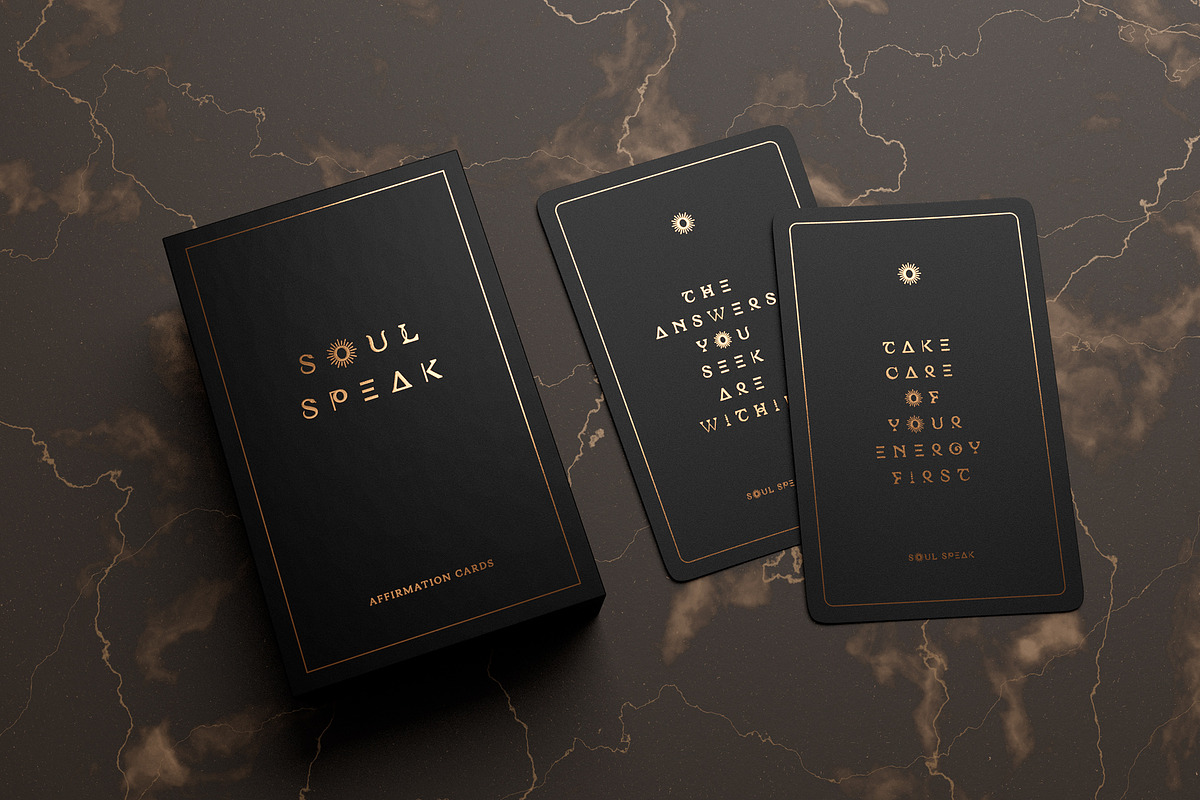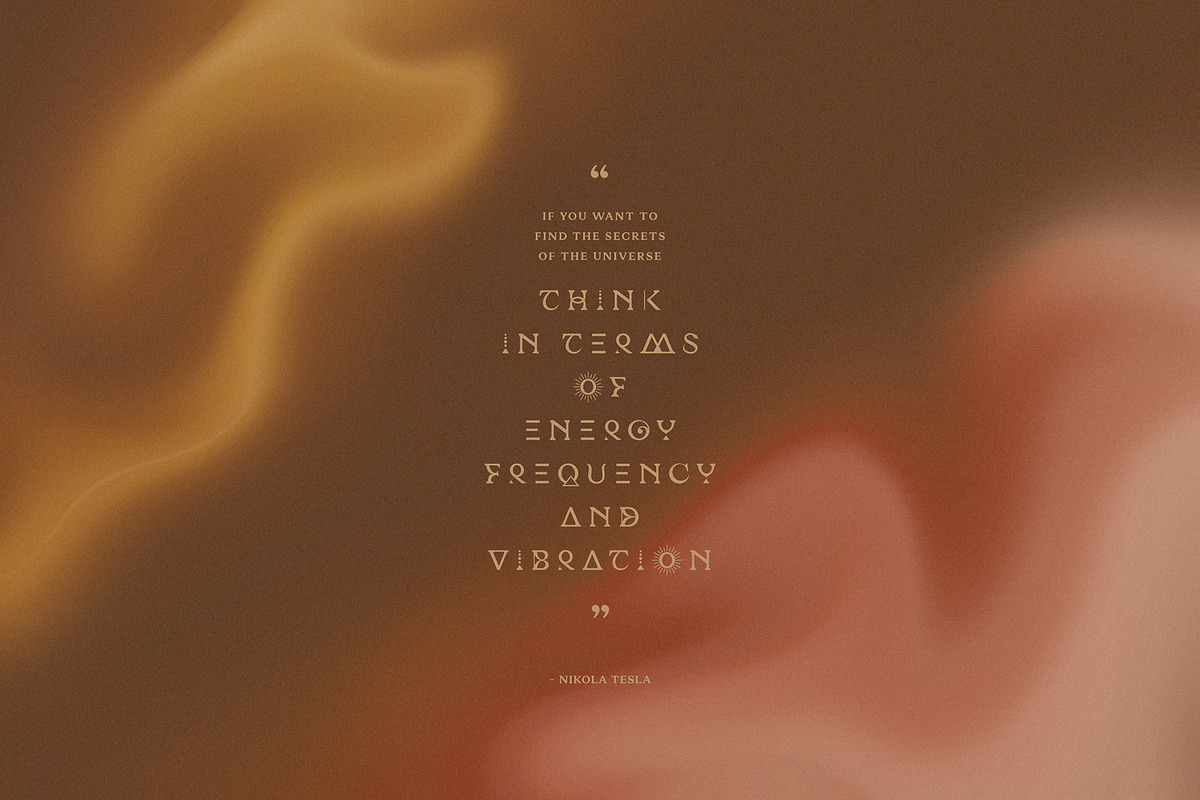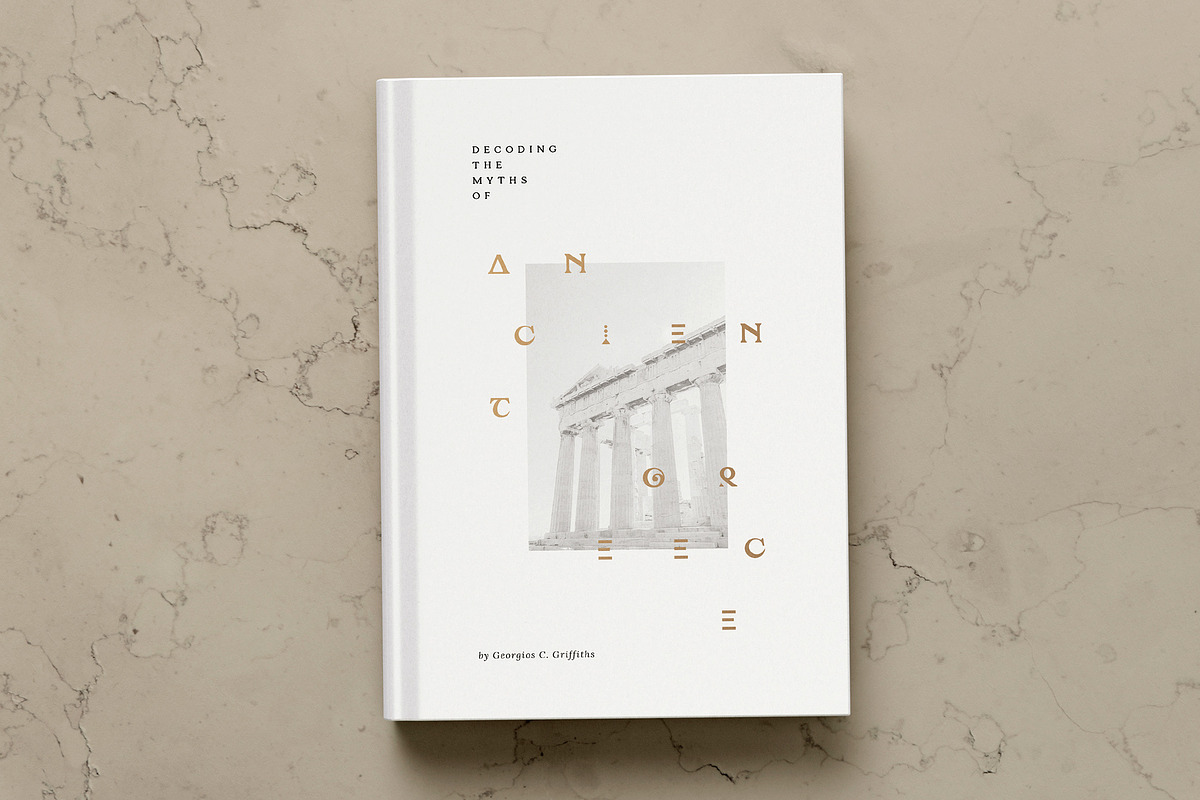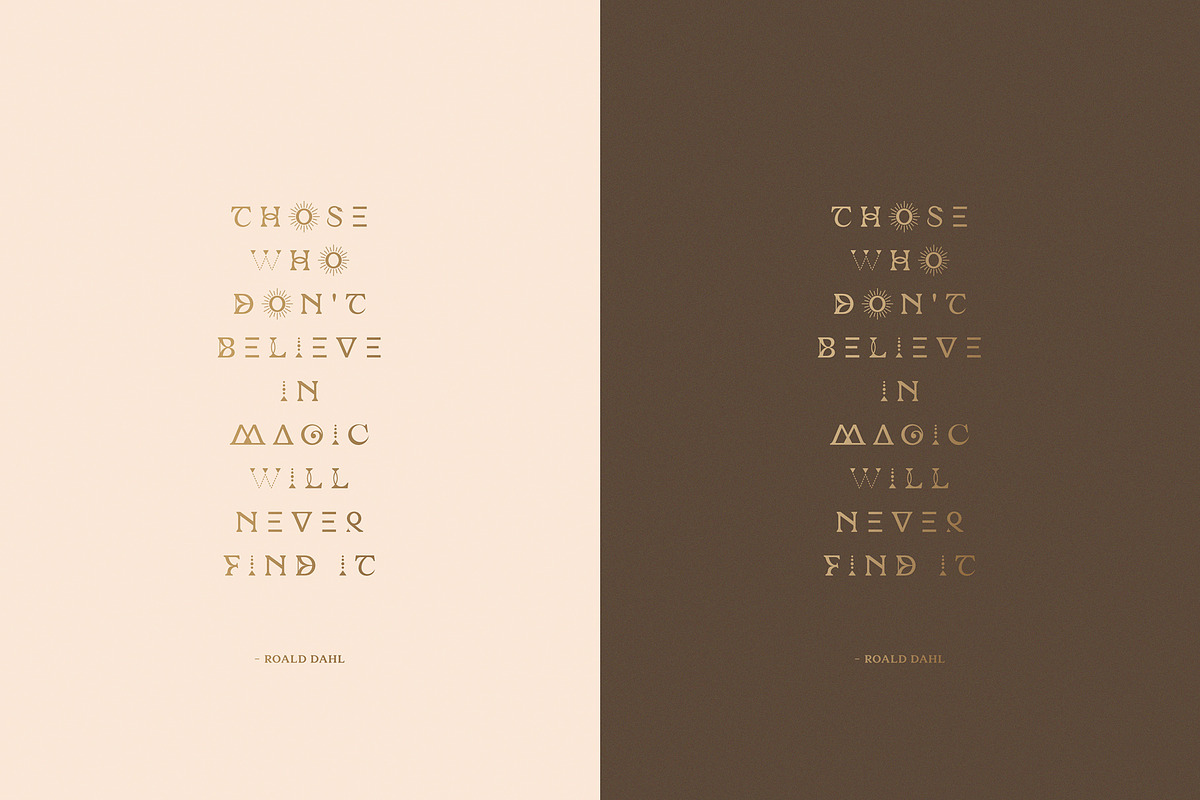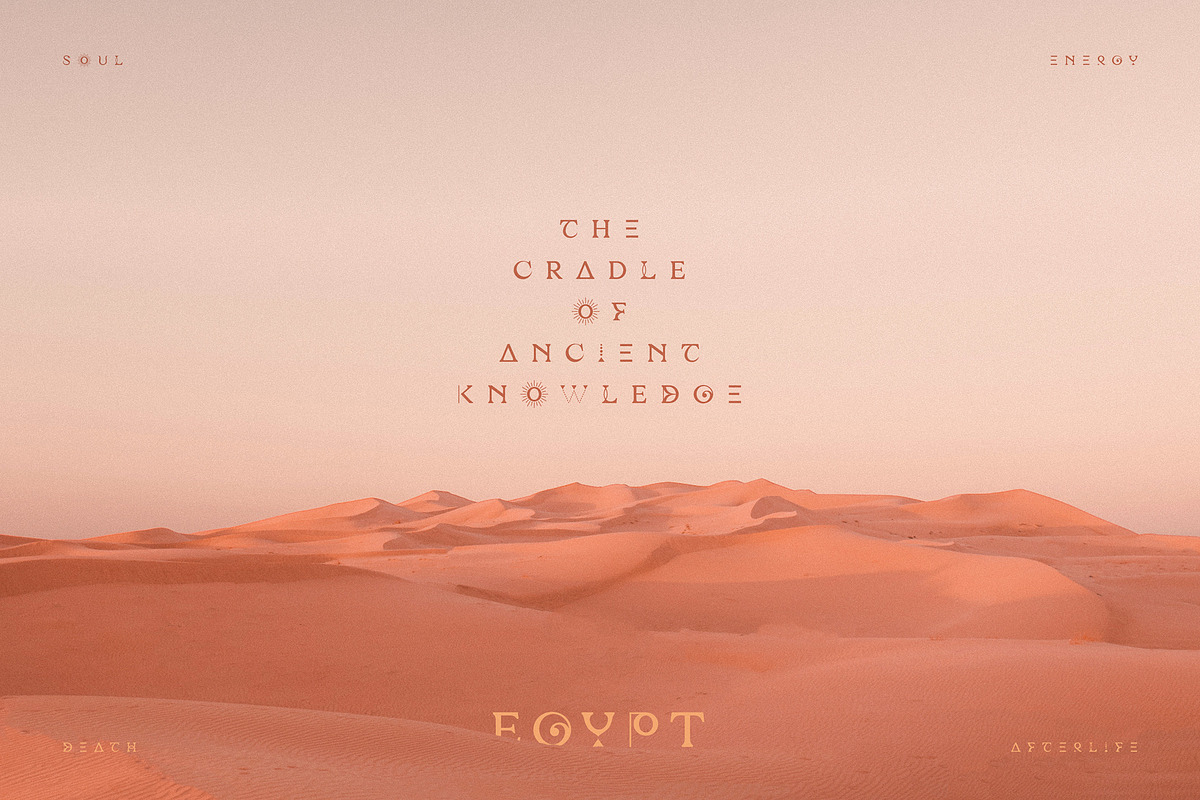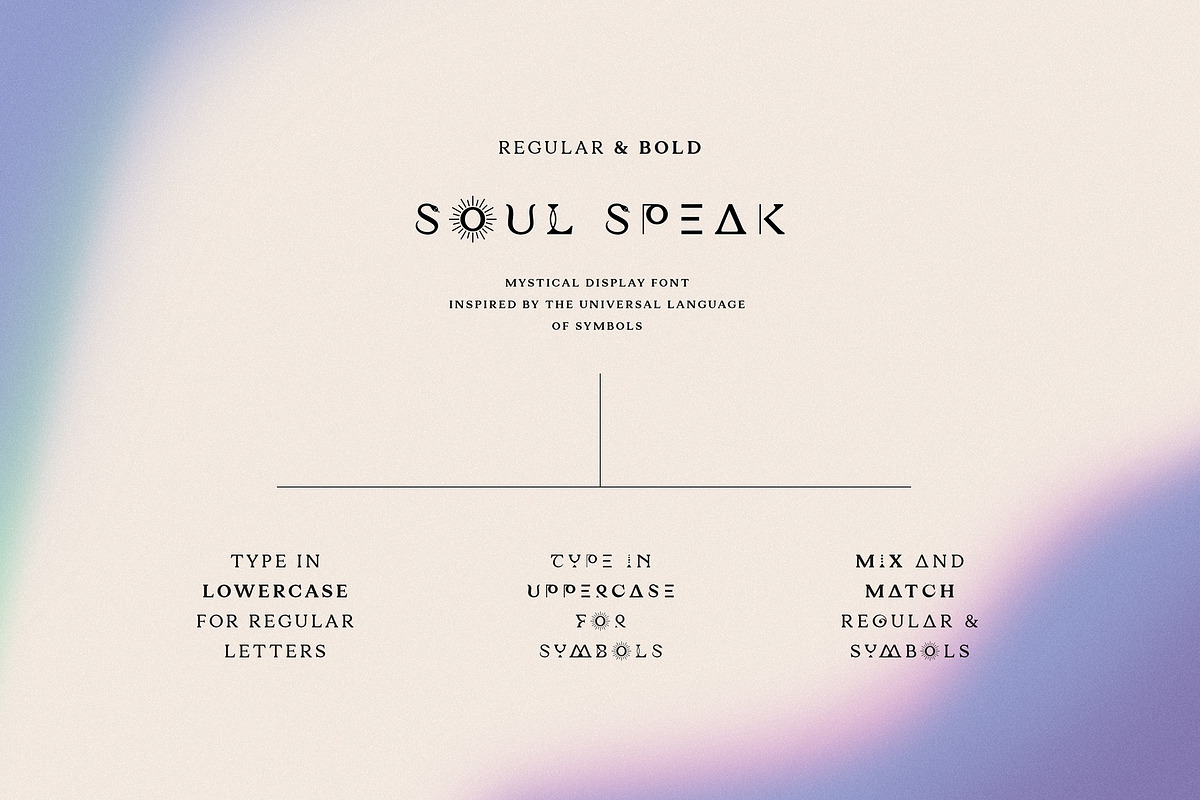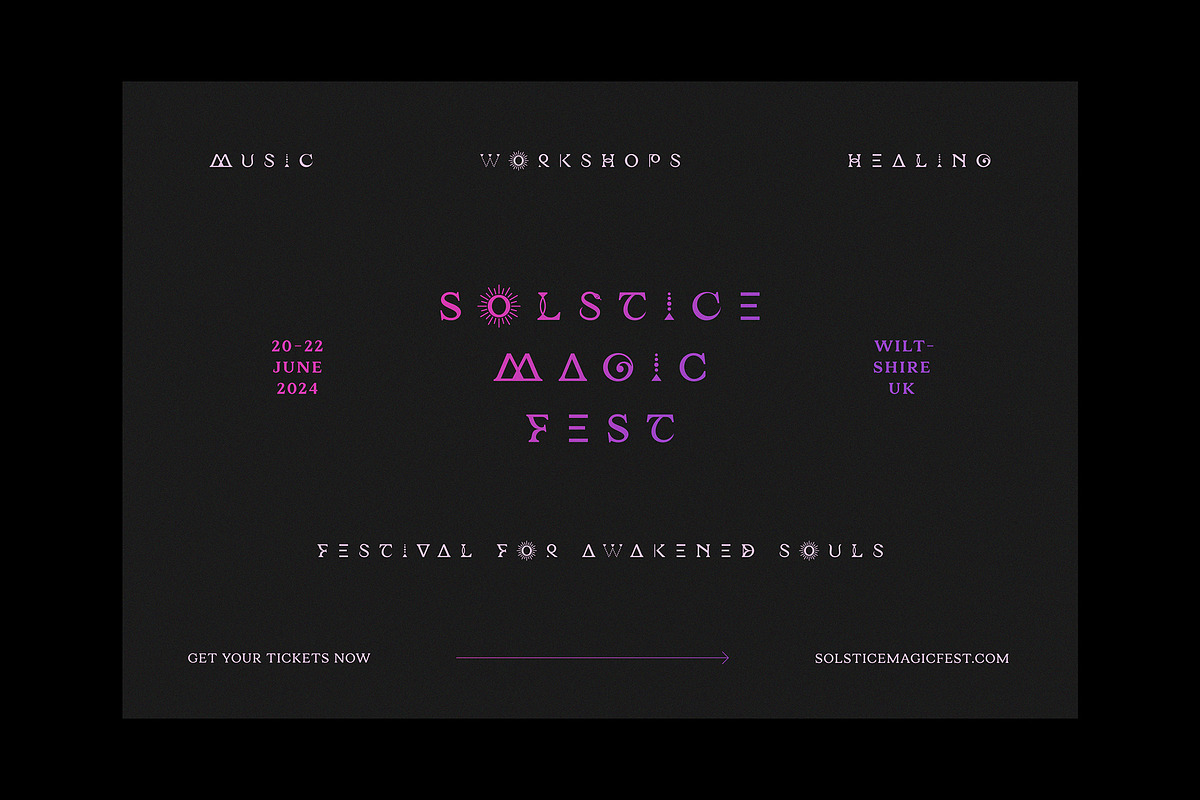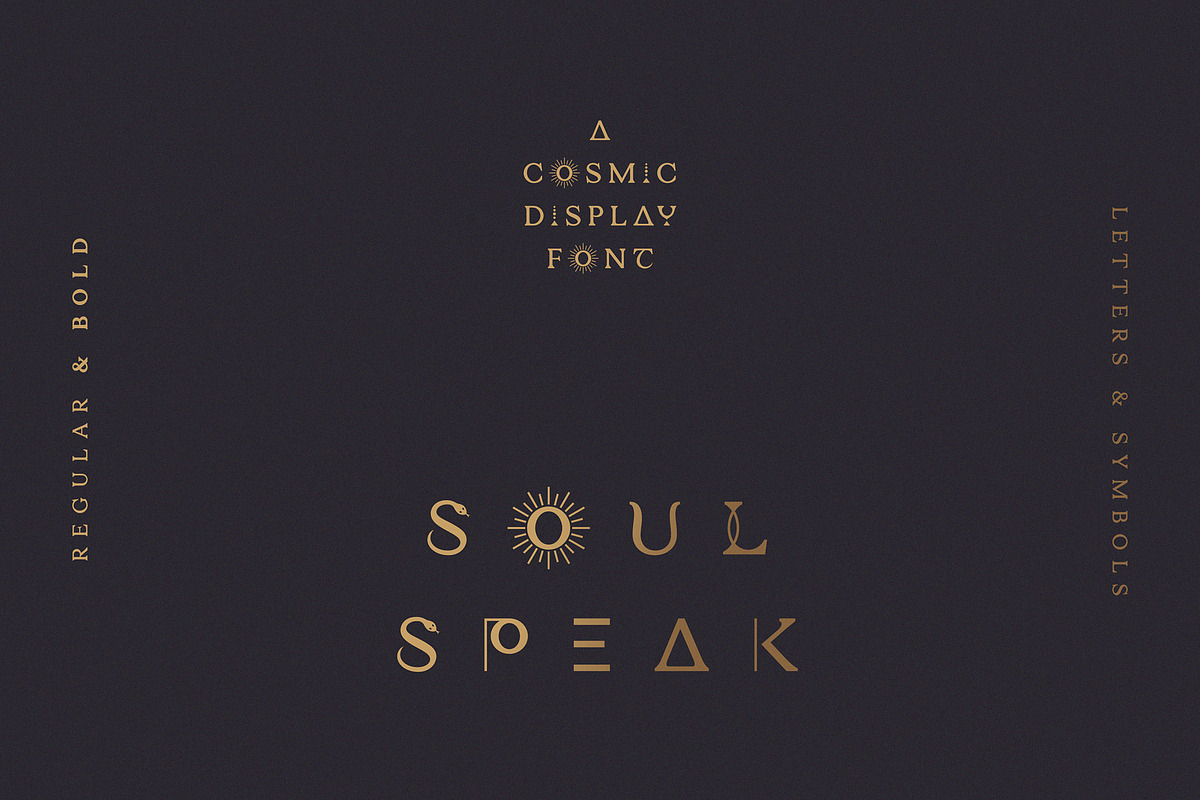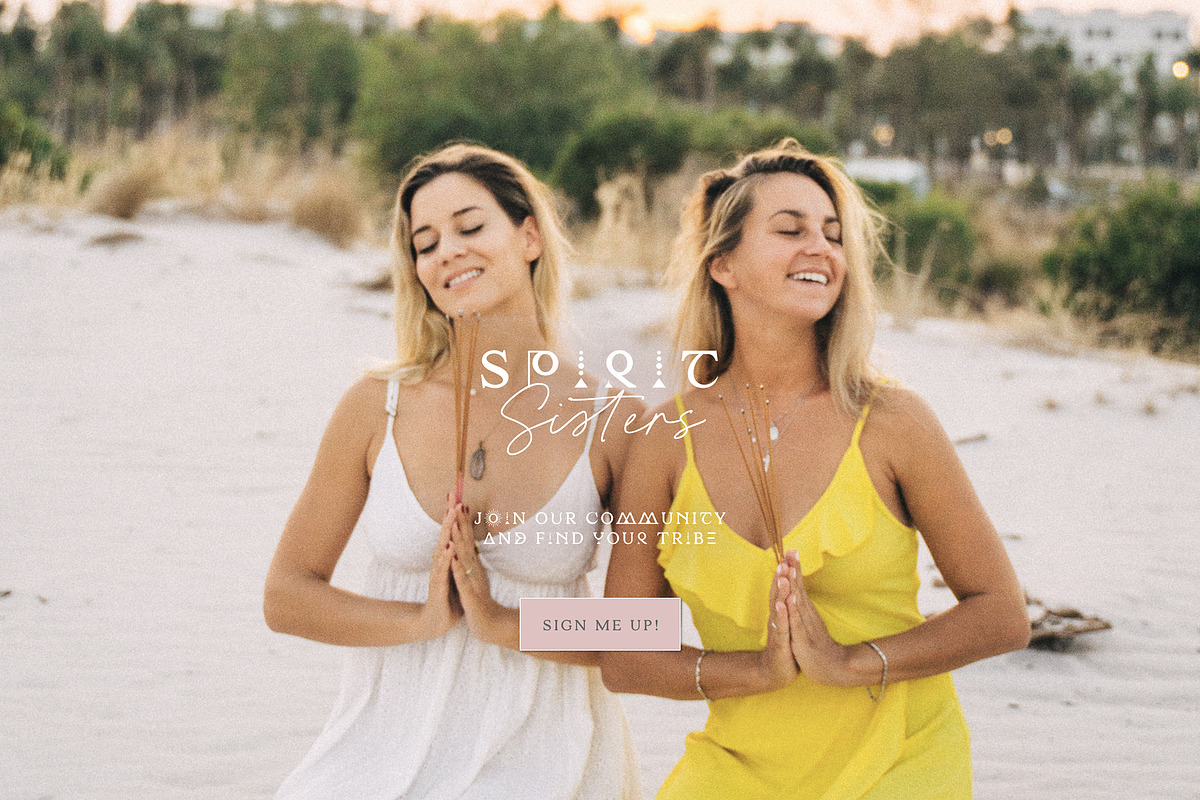
Soul Speak - cosmic symbols serif
Ancient ∞ Cosmic ∞ Mystical ∞ Eternal
Soul Speak is an uppercase only display font with an alternative set of letters designed to look like symbols, whilst still remaining highly legible. Perfect for a spiritual, other-worldly aesthetic! Type in lowercase for normal letters and uppercase for the symbol versions. You can also mix and match the two!
This font comes in two weights, Regular & Bold. Due to the thin lines in some of the symbol letters, I've also included a second version of the Regular weight, where the thin lines of B, D, K, L, O, P, W and Z are slightly thicker - recommended for use when printing on dark backgrounds.